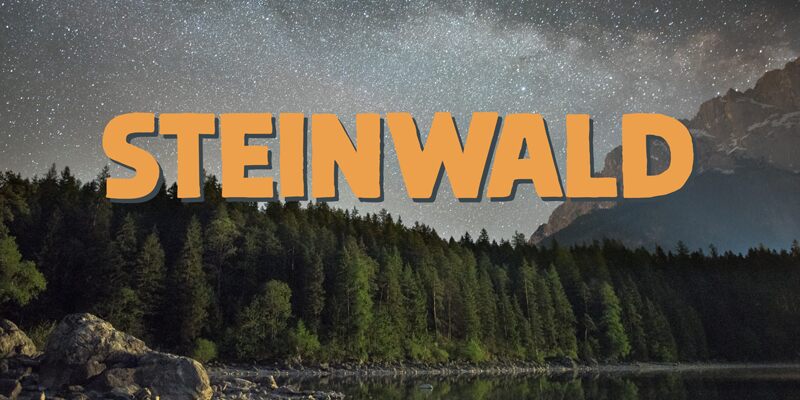
The Steinwald font, designed by D K, is an extra-bold display font that commands attention with its strong and confident presence. Ideal for headlines, titles, and branding projects that require a bold statement, this font features clean lines and sharp edges that convey a modern and sophisticated aesthetic. Its wide range of weights make it versatile for use in both print and digital applications. Whether you're designing a striking logo or crafting eye-catching marketing materials, the Steinwald font will elevate your project to new heights. Make your design stand out with the boldness of Steinwald!